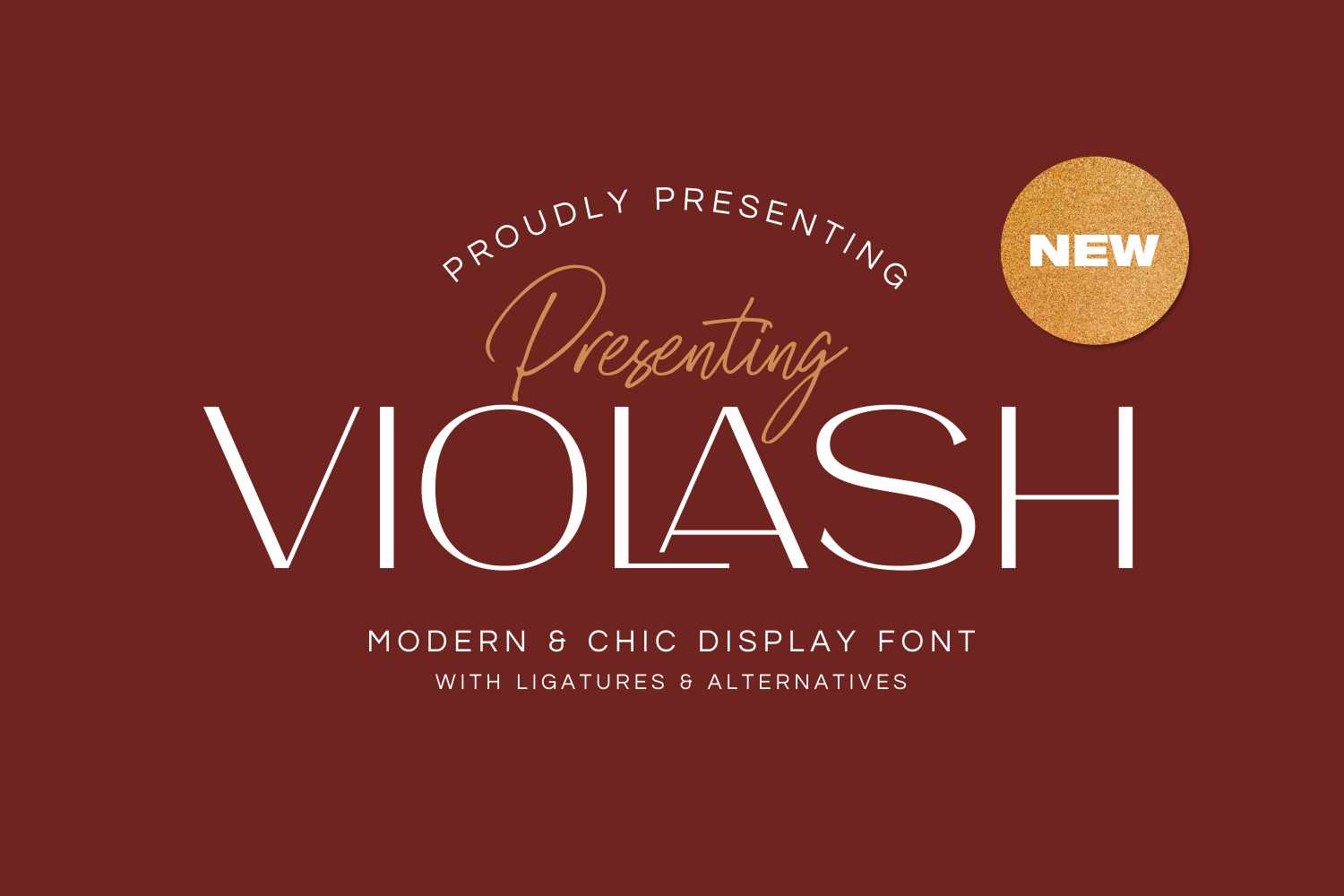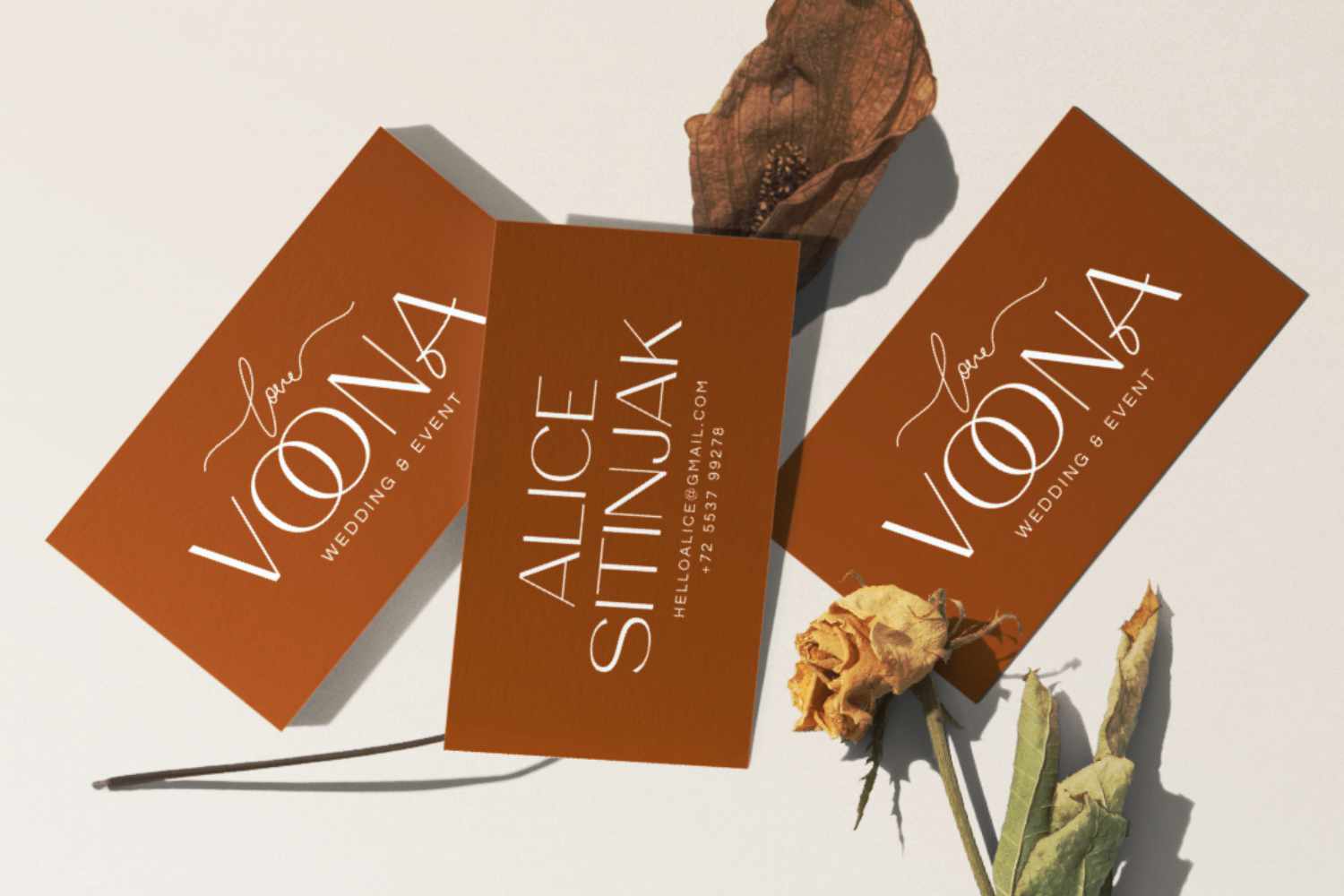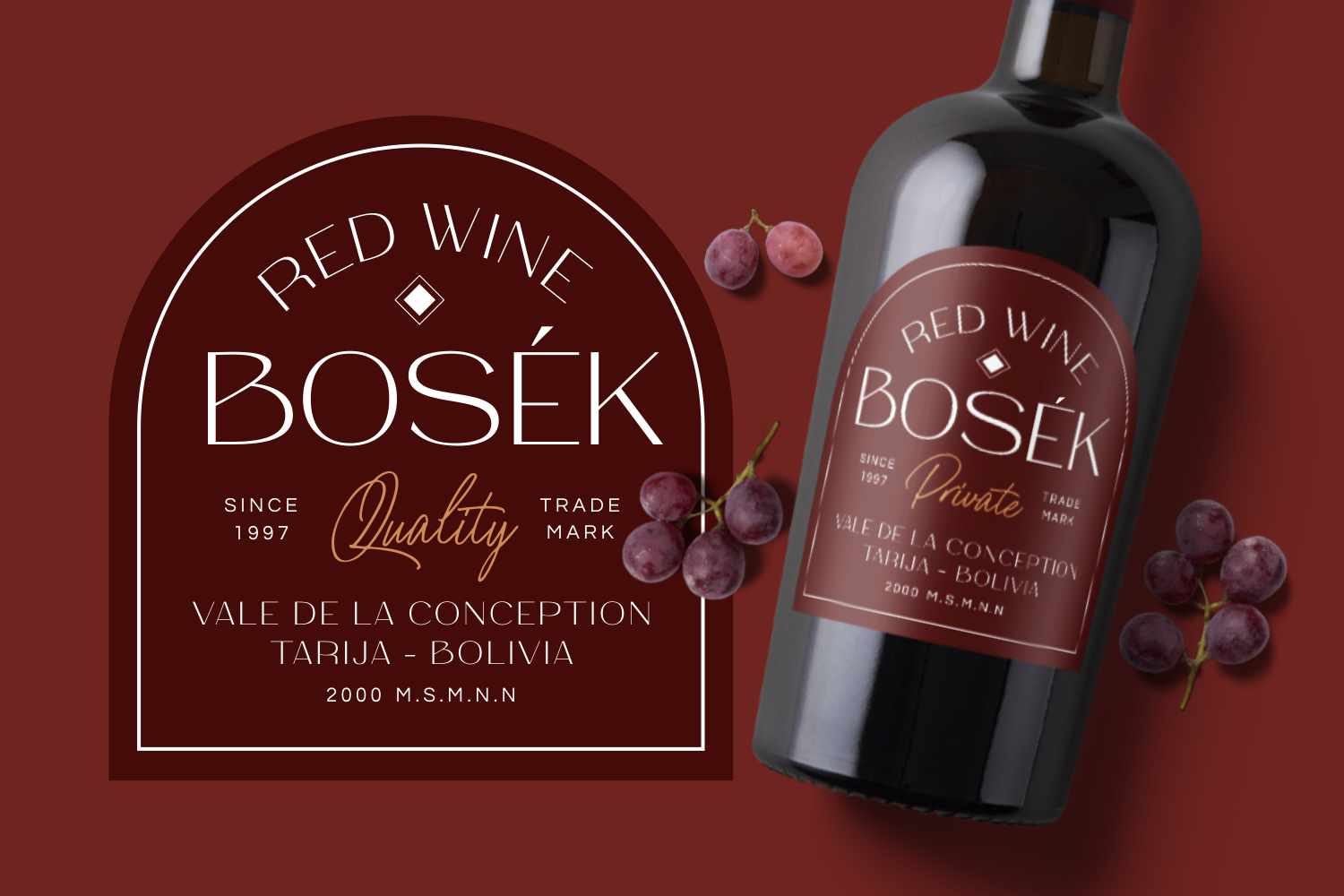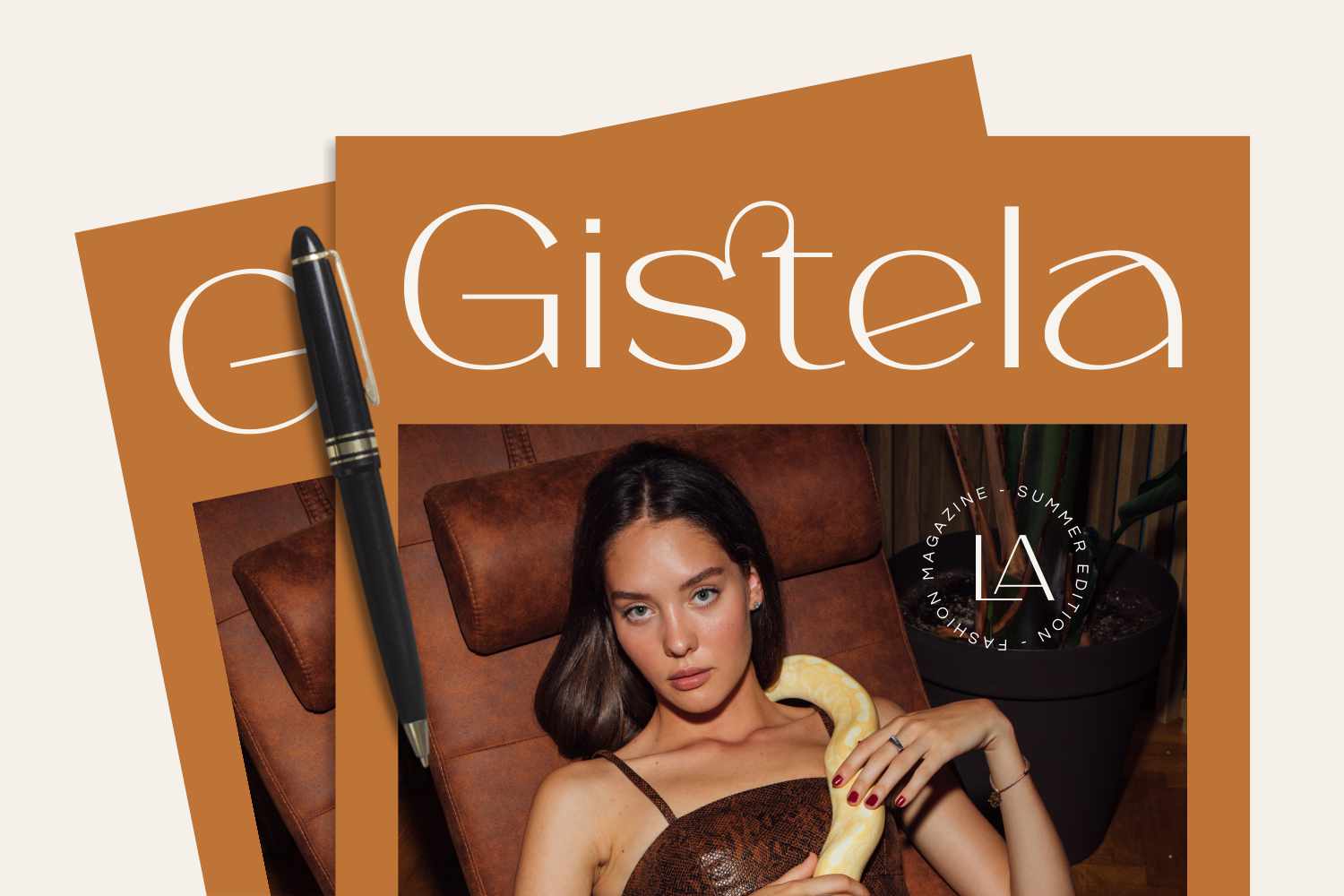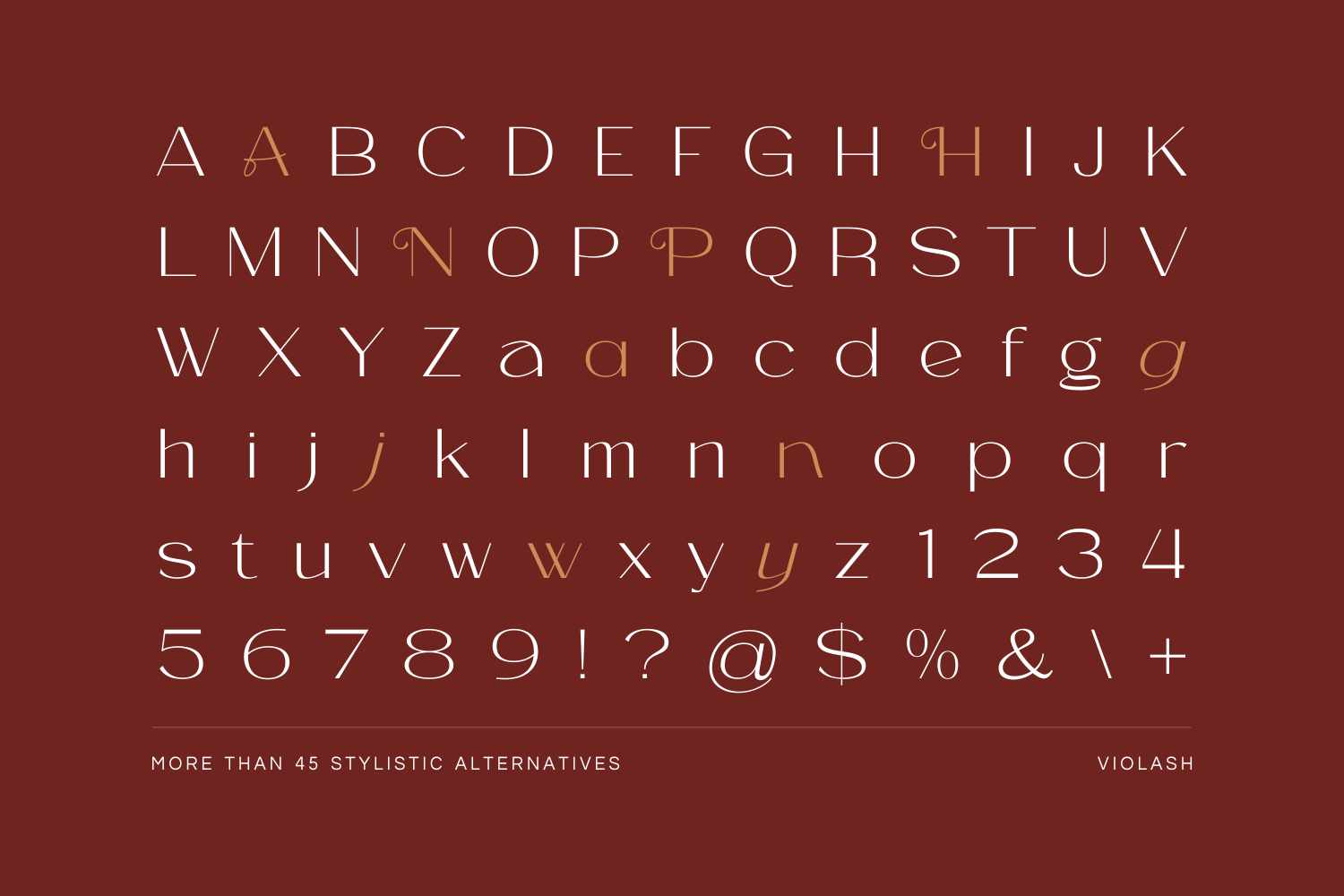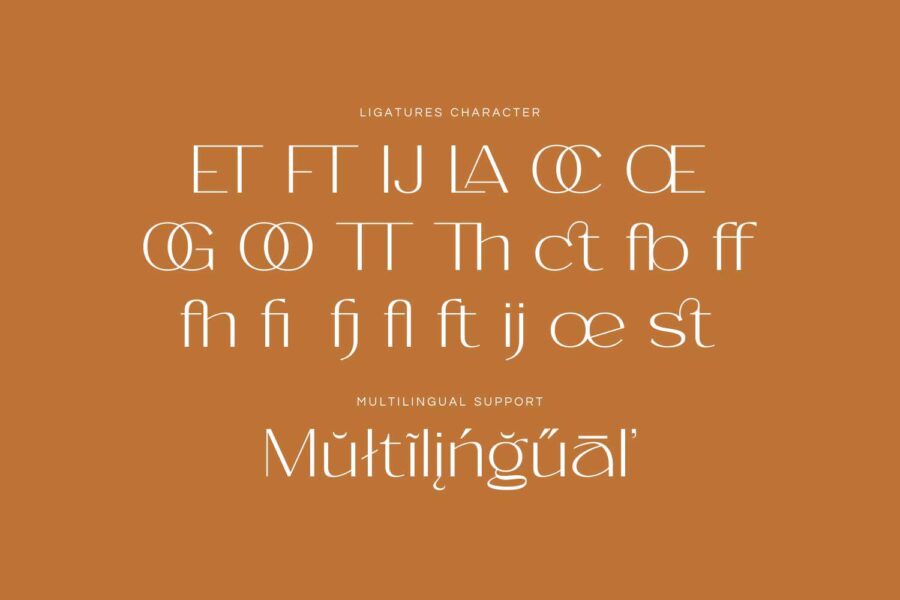
Violash is a modern and chic display font that brings sophistication and precision to your visual identity. With high contrast lines and geometric elegance, this typeface blends sharp edges and soft curves, making it ideal for luxury branding, wedding stationery, magazine headers, and premium packaging.
This font features over 45 stylistic alternates and a wide range of ligatures, giving you creative freedom to design distinctive logos and elegant layouts. Its multilingual support also makes Violash a versatile tool for global brands aiming to convey timeless elegance with a fashionable twist.
Violash